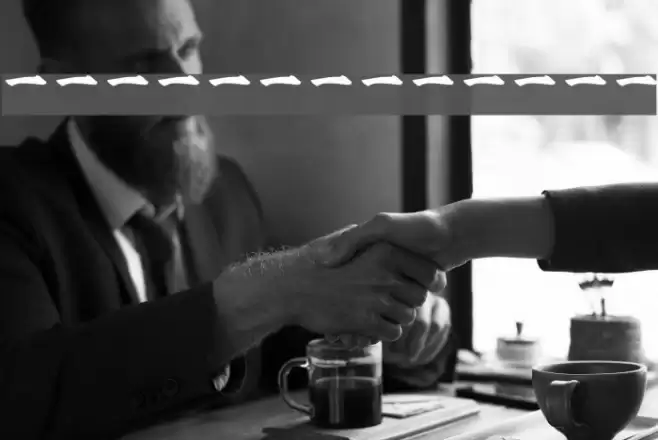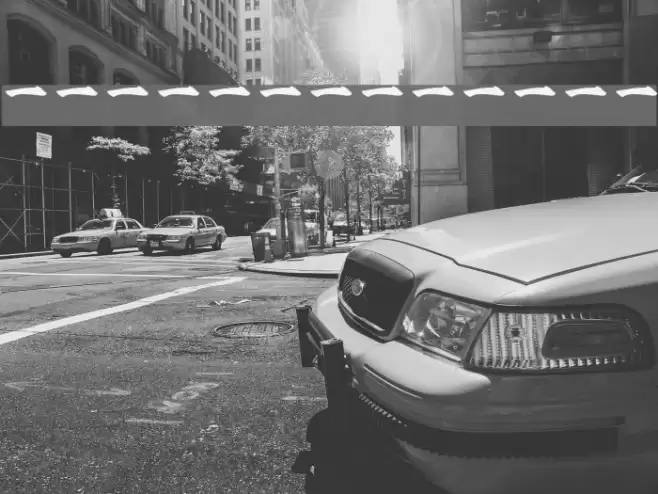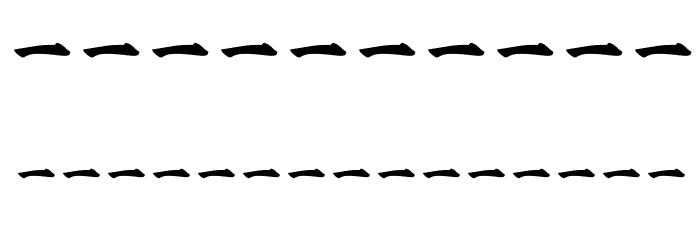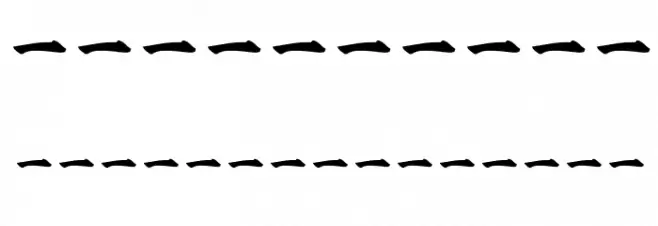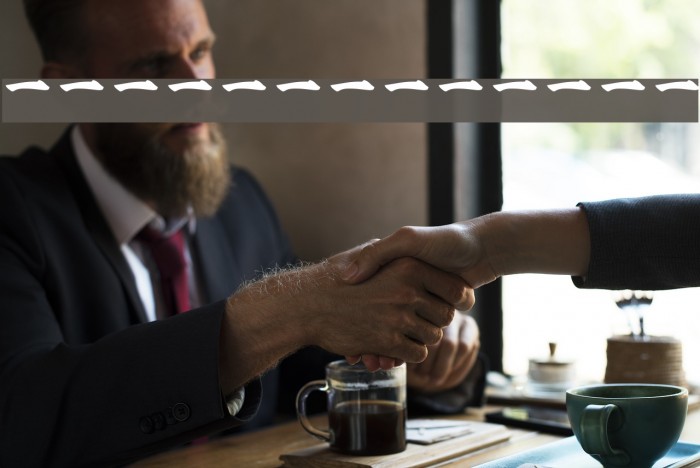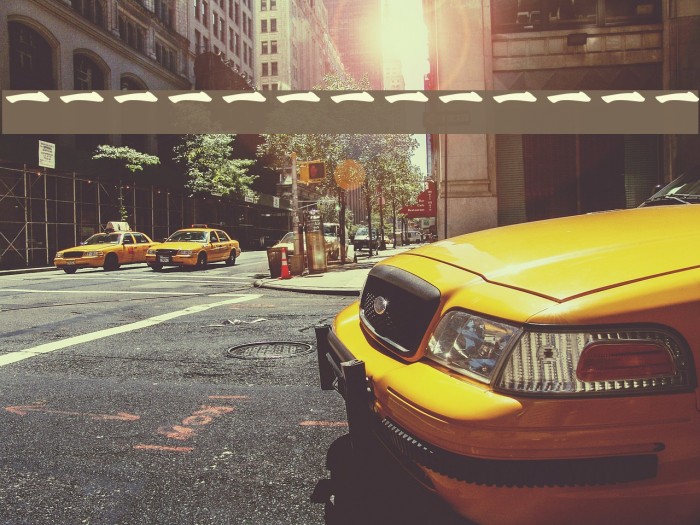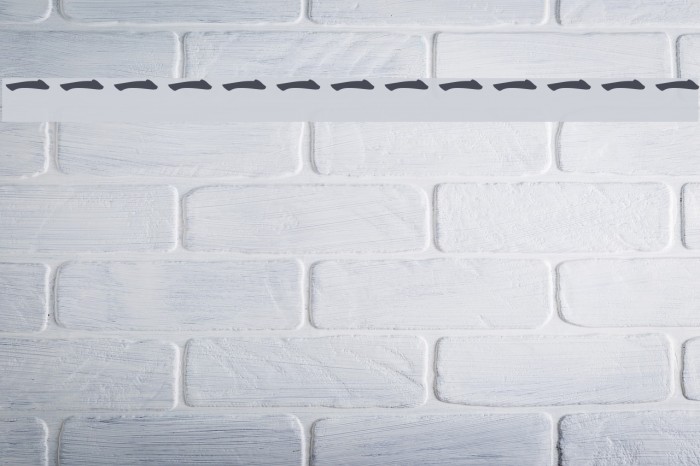
Kanji G Font
Kanji G Description
This font features a unique and artistic design, characterized by its bold and dynamic strokes. Each character is crafted with a sense of movement, resembling brush strokes that convey a sense of fluidity and energy. The font maintains a consistent thickness throughout, giving it a strong and impactful presence. Its distinctive style makes it suitable for creative and expressive projects, where a touch of artistry is desired. The characters are evenly spaced, ensuring readability while maintaining the artistic flair. This font is ideal for projects that require a bold statement and a creative touch.
Artistic font with bold, dynamic strokes and a fluid, brush-like appearance from Uncategorized fonts.
- Font: Kanji G
- Proposed Projects: Ideal for artistic projects, creative branding, expressive posters, and unique logo designs.
- Overall Style: Artistic, Expressive
- Use Case: Logos, Posters, Creative Branding